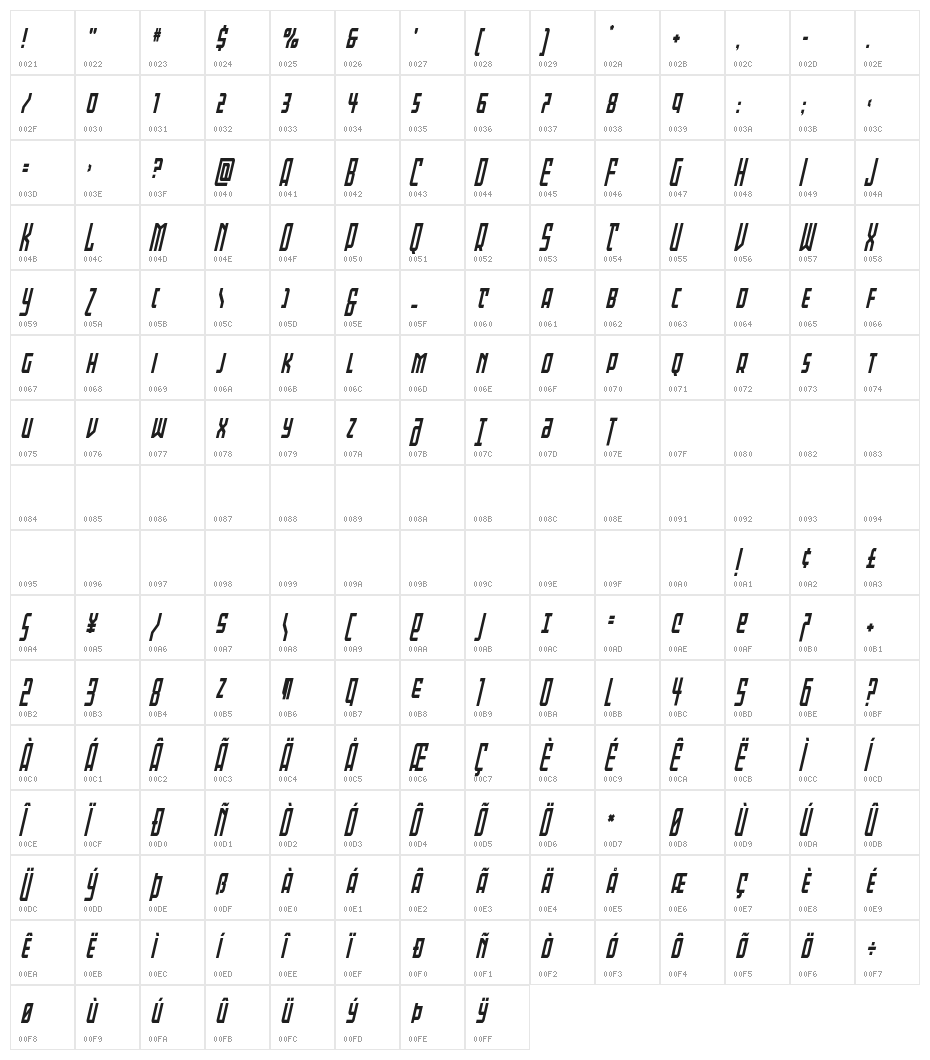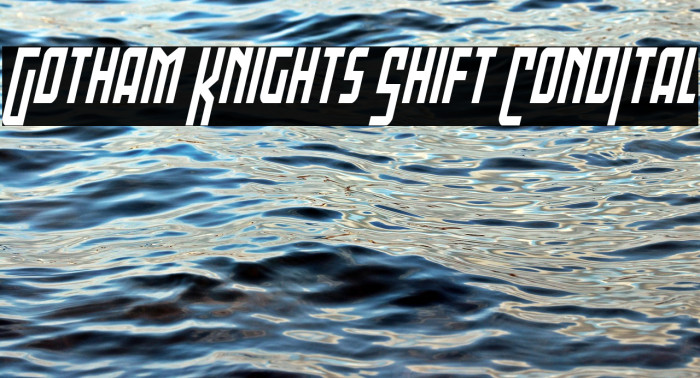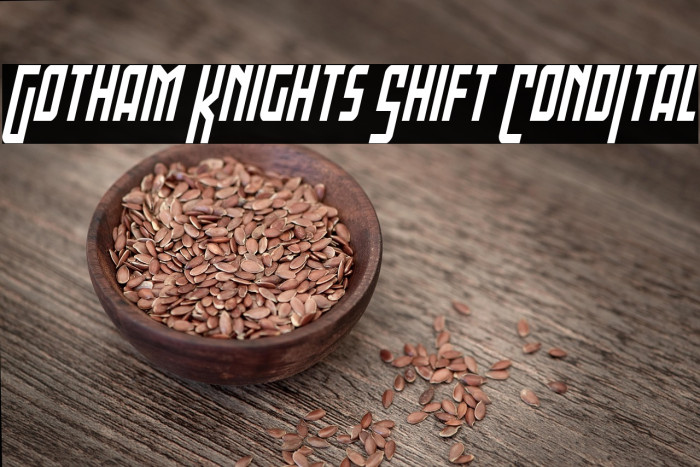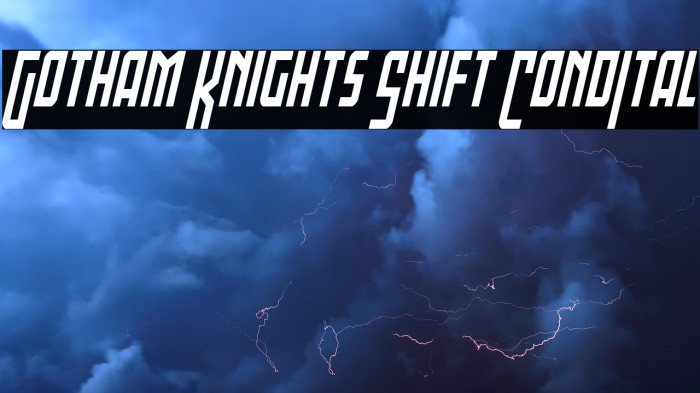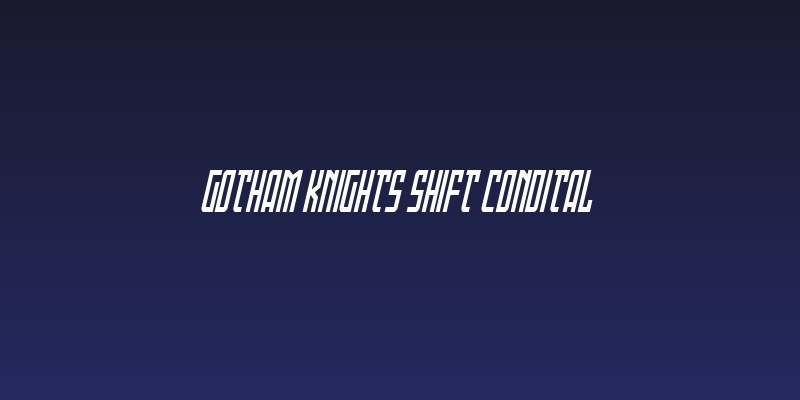
Gotham Knights Shift CondItal Font
Gotham Knights Shift CondItal Description
This font features a bold and dynamic design with a strong, angular structure. The characters are condensed and italicized, giving them a sense of motion and urgency. The uppercase and lowercase letters maintain a consistent style, with sharp edges and a futuristic appearance. The numerals and special characters complement the alphabet with the same bold and angular design. This font is ideal for projects that require a modern and edgy look, such as video game titles, sports branding, or action movie posters.